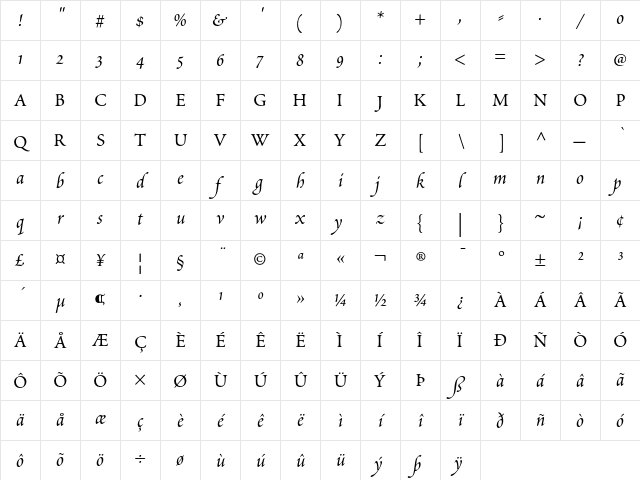
Complete Poetica Chancery IV glyph index. Displaying only characters natively supported by Poetica Chancery IV font.
Poetica is a composed and adaptable typeface that performs quietly and consistently across a wide range of design contexts.